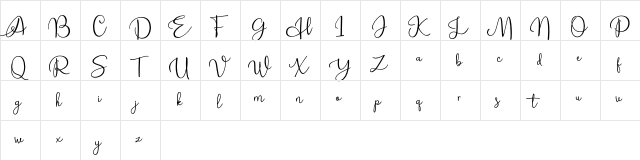
Alleysha Regular
| Designer | HIRO Studio |
Design Context for Alleysha Typeface
Alleysha is a composed and adaptable typeface that performs quietly and consistently across a wide range of design contexts.